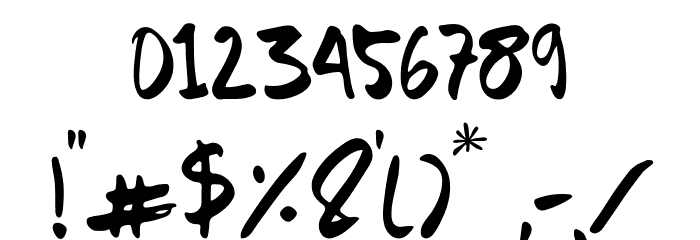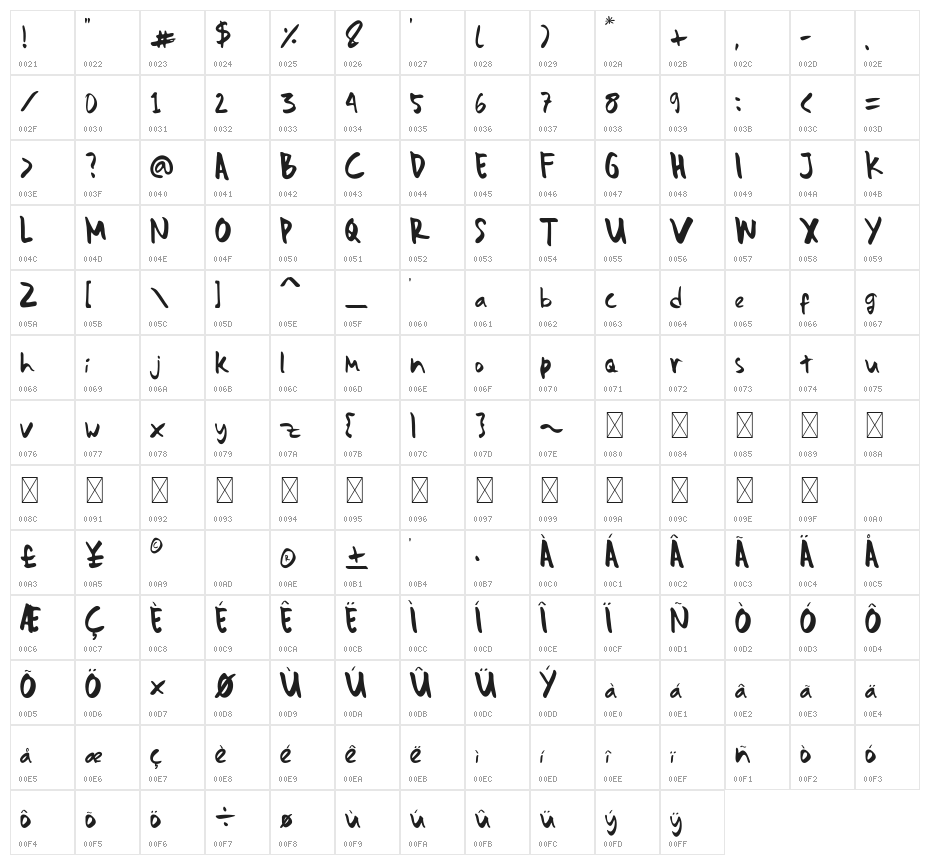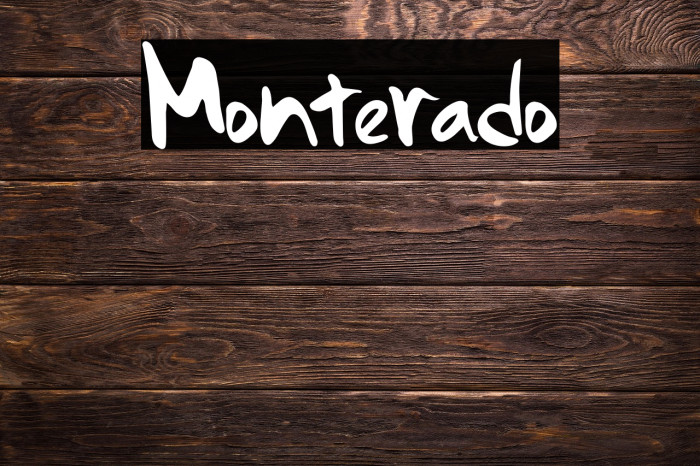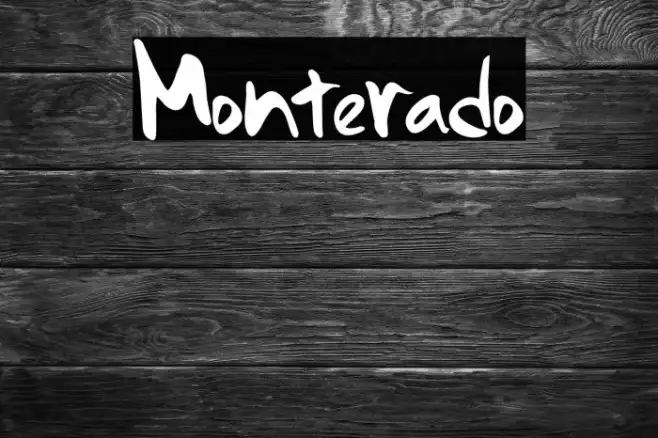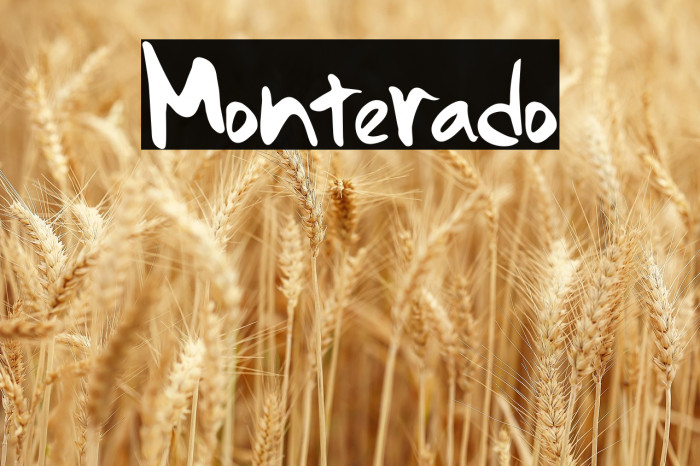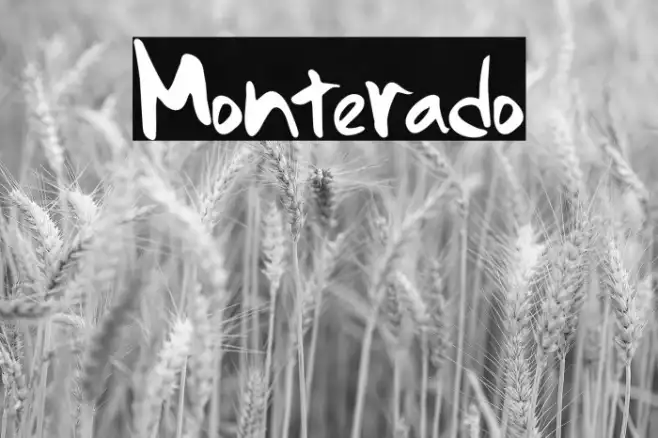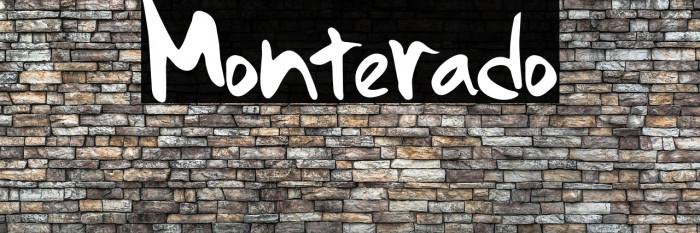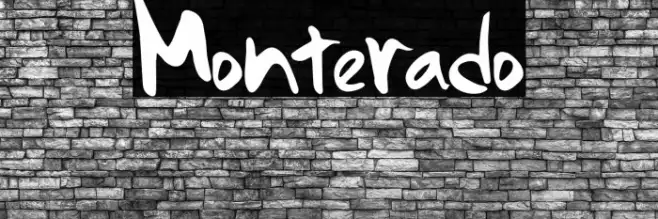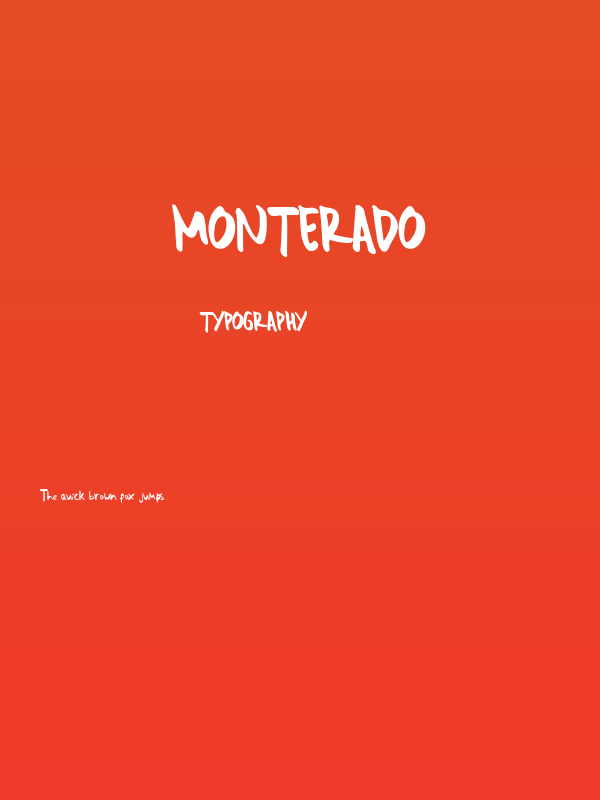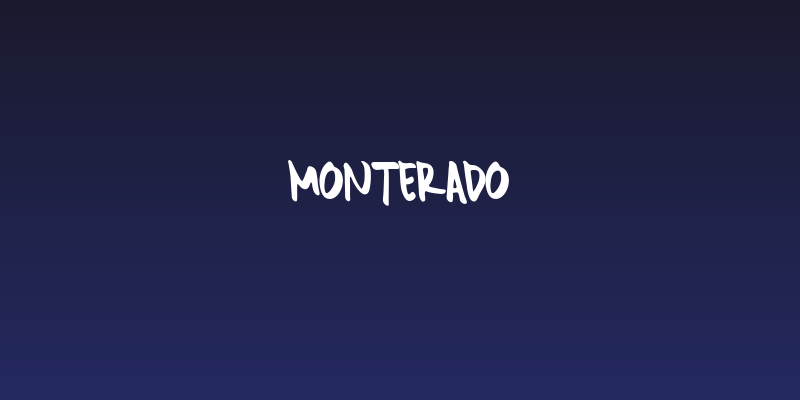
Monterado Font
Monterado Description
This font features a bold and playful handwritten style, characterized by its thick strokes and slightly irregular letterforms. The uppercase letters are robust and dynamic, while the lowercase letters maintain a consistent flow with a casual, friendly appearance. The numbers are bold and easy to read, matching the overall energetic feel of the alphabet. Special characters are creatively designed, adding to the font's whimsical charm. The font's overall look is informal and lively, making it suitable for projects that require a personal touch.